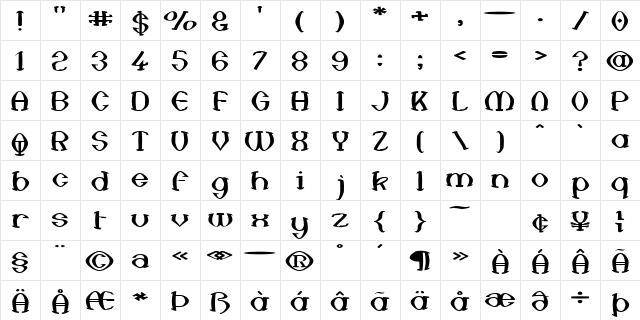
Complete Anal Satisfaction Regular glyph index. Displaying only characters natively supported by Anal Satisfaction Regular font.
Anal Satisfaction is a composed and adaptable typeface that performs quietly and consistently across a wide range of design contexts.